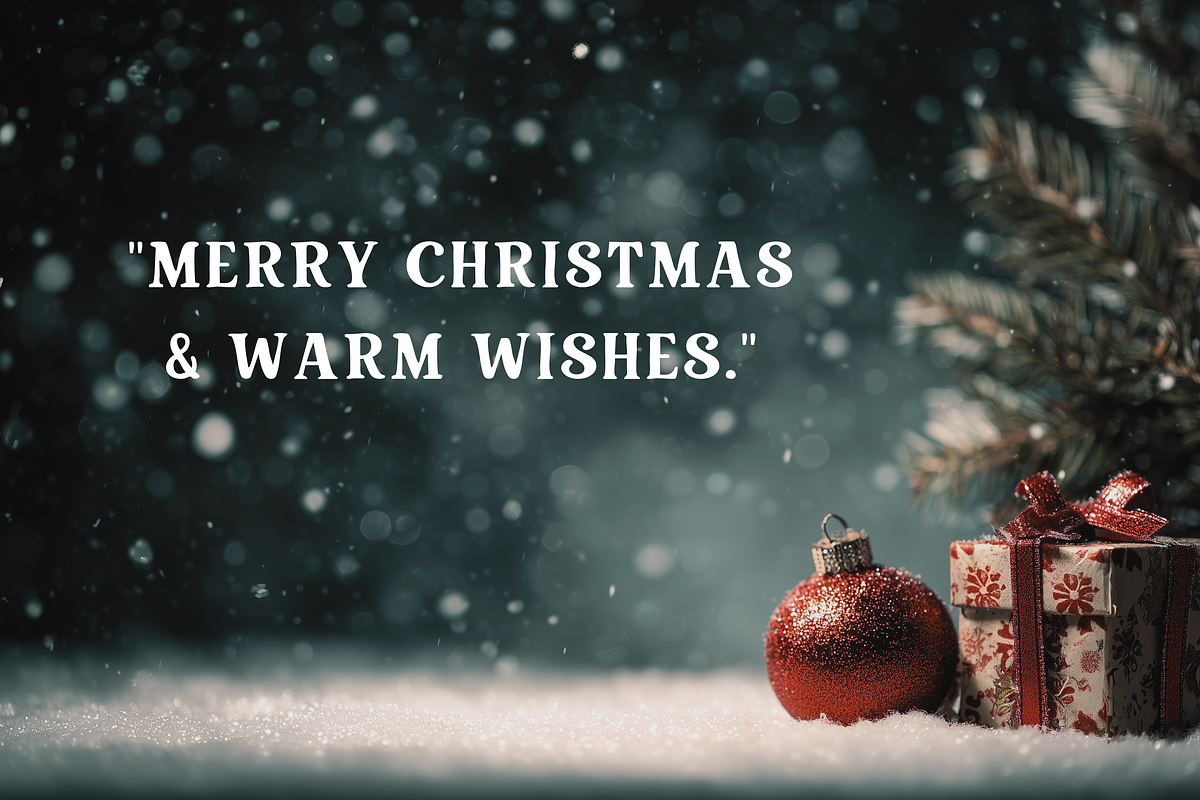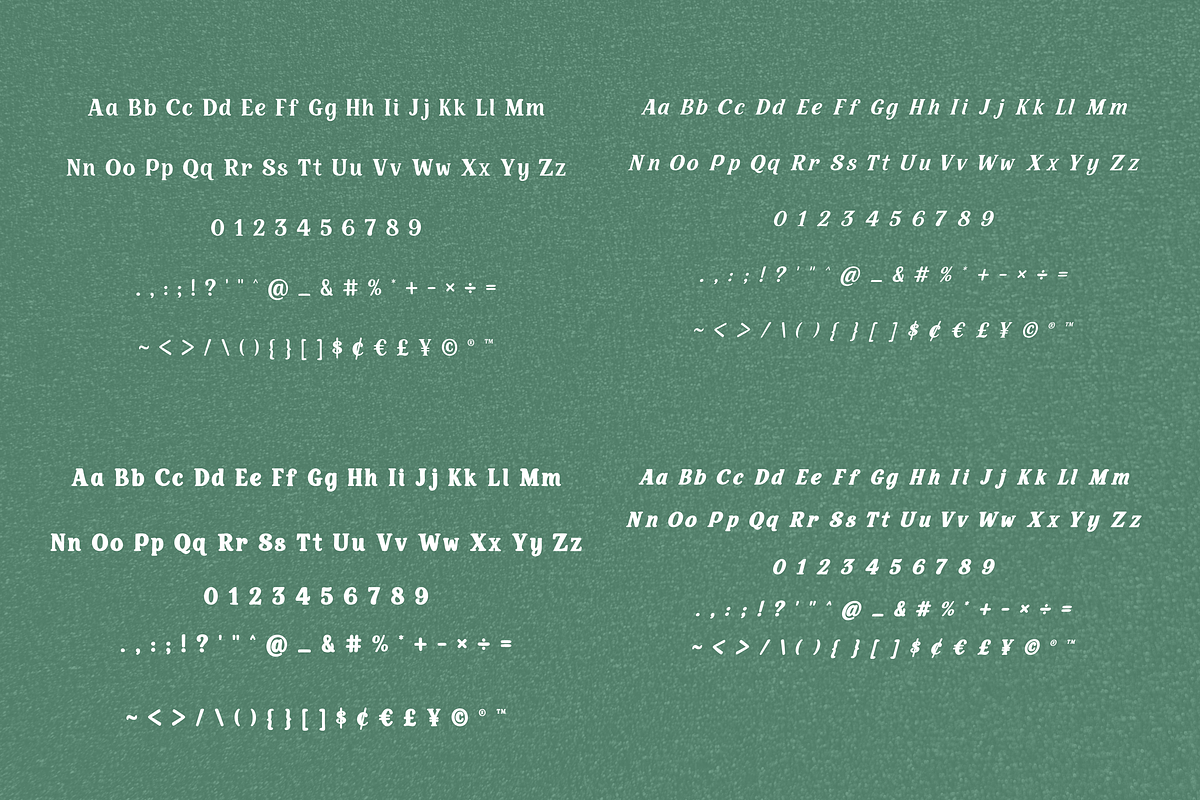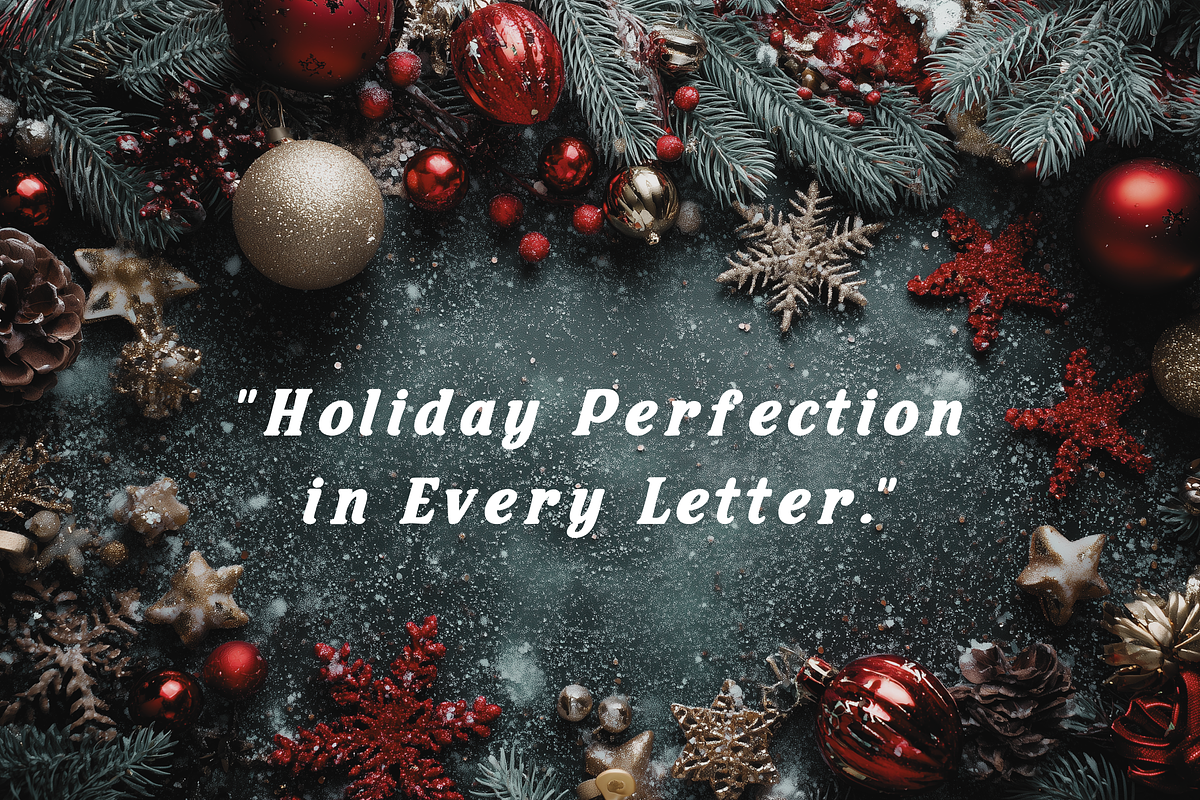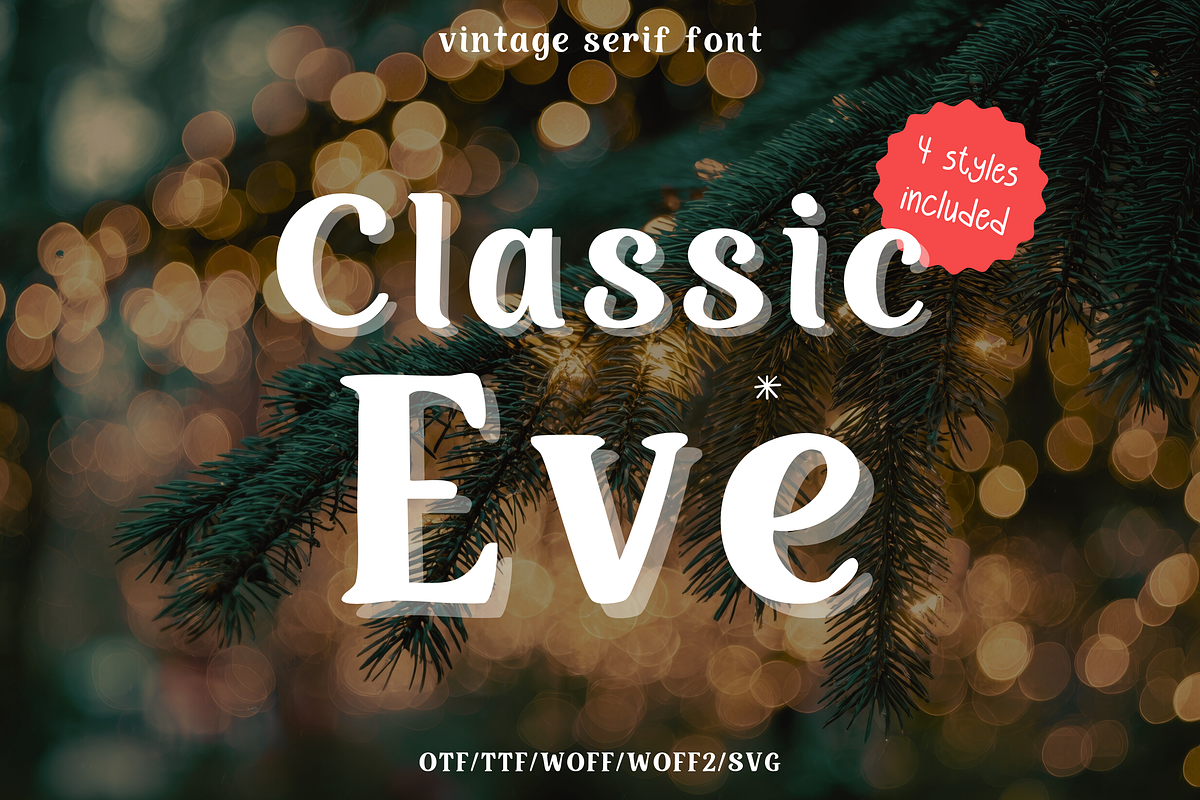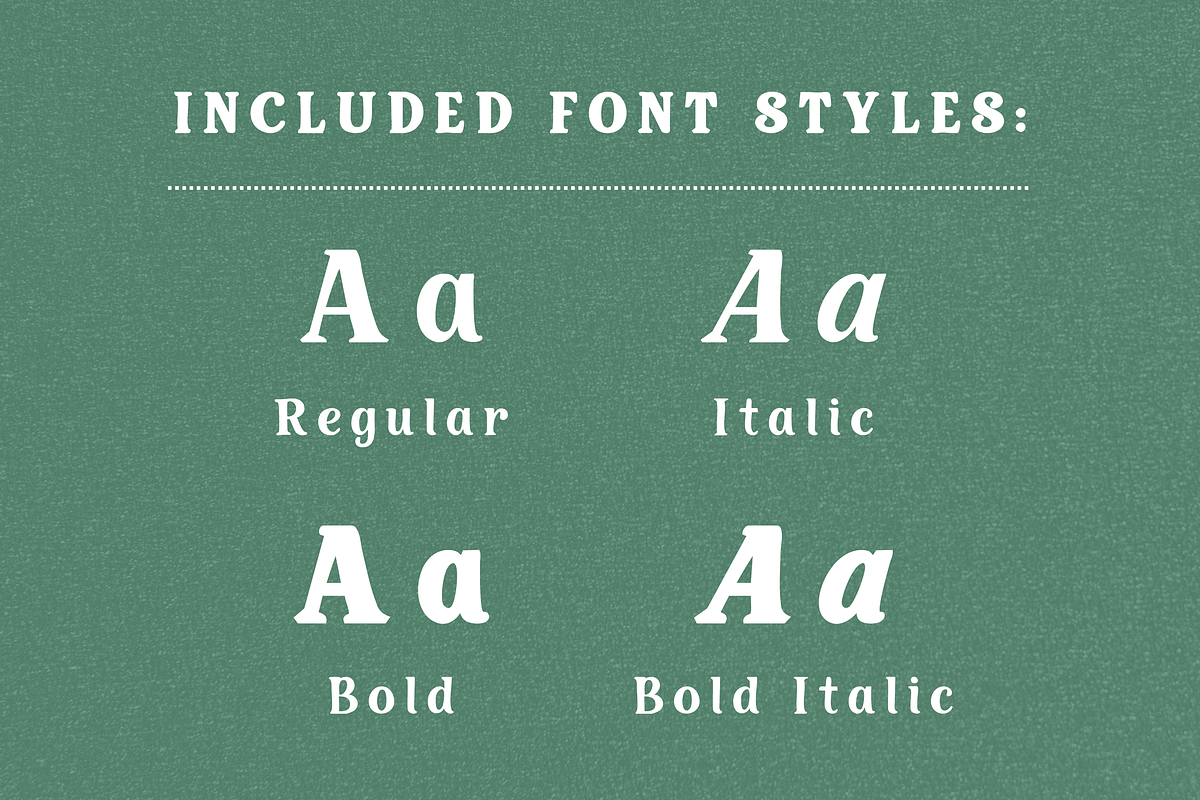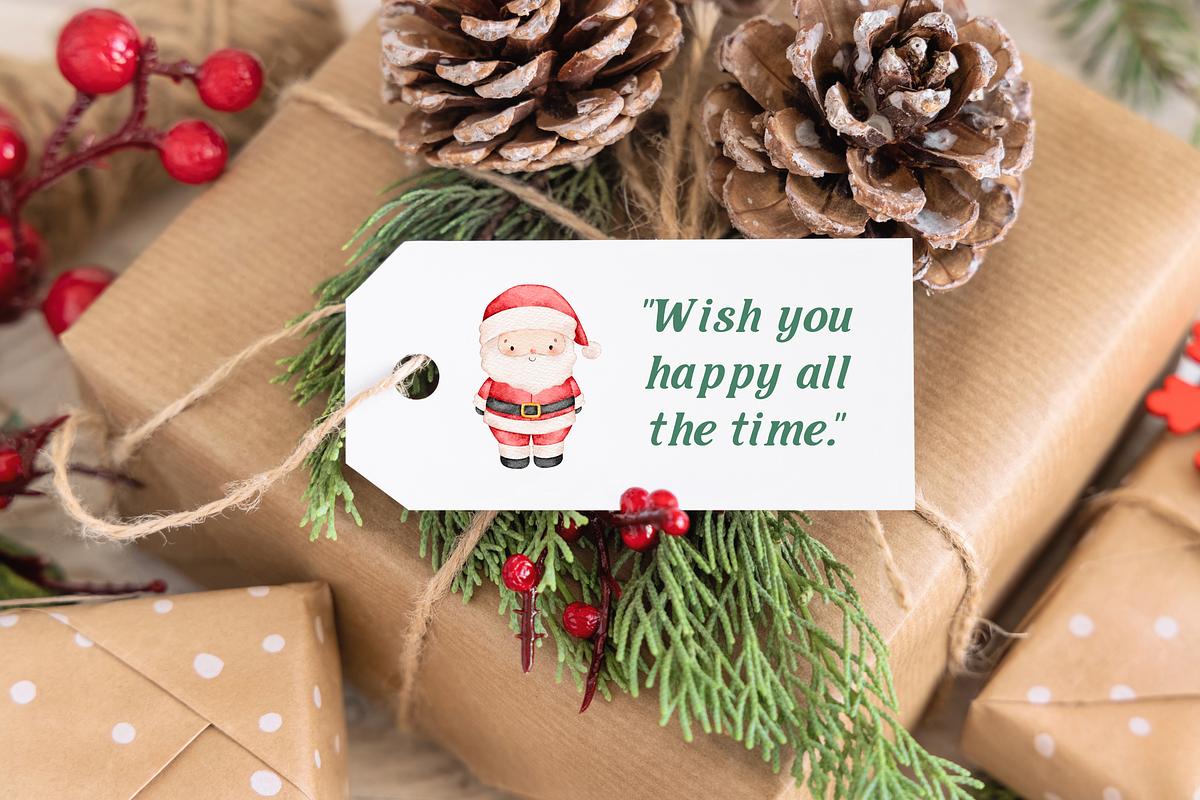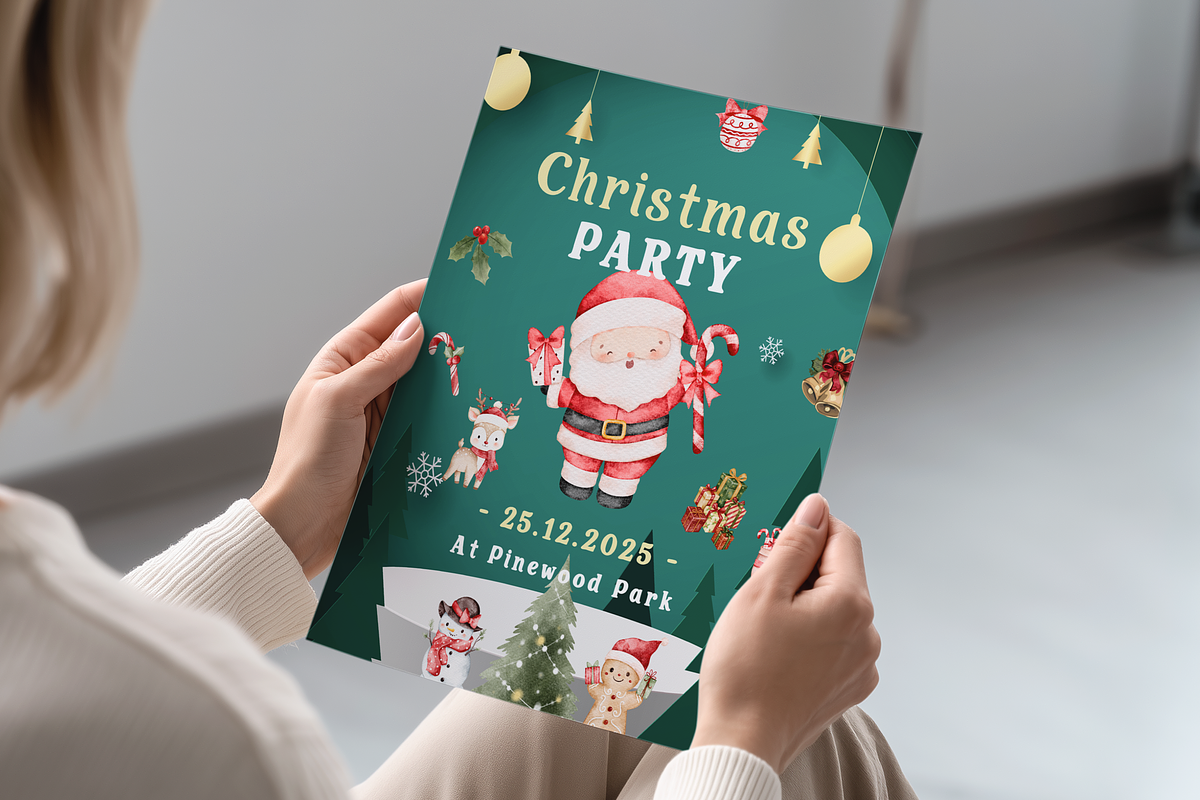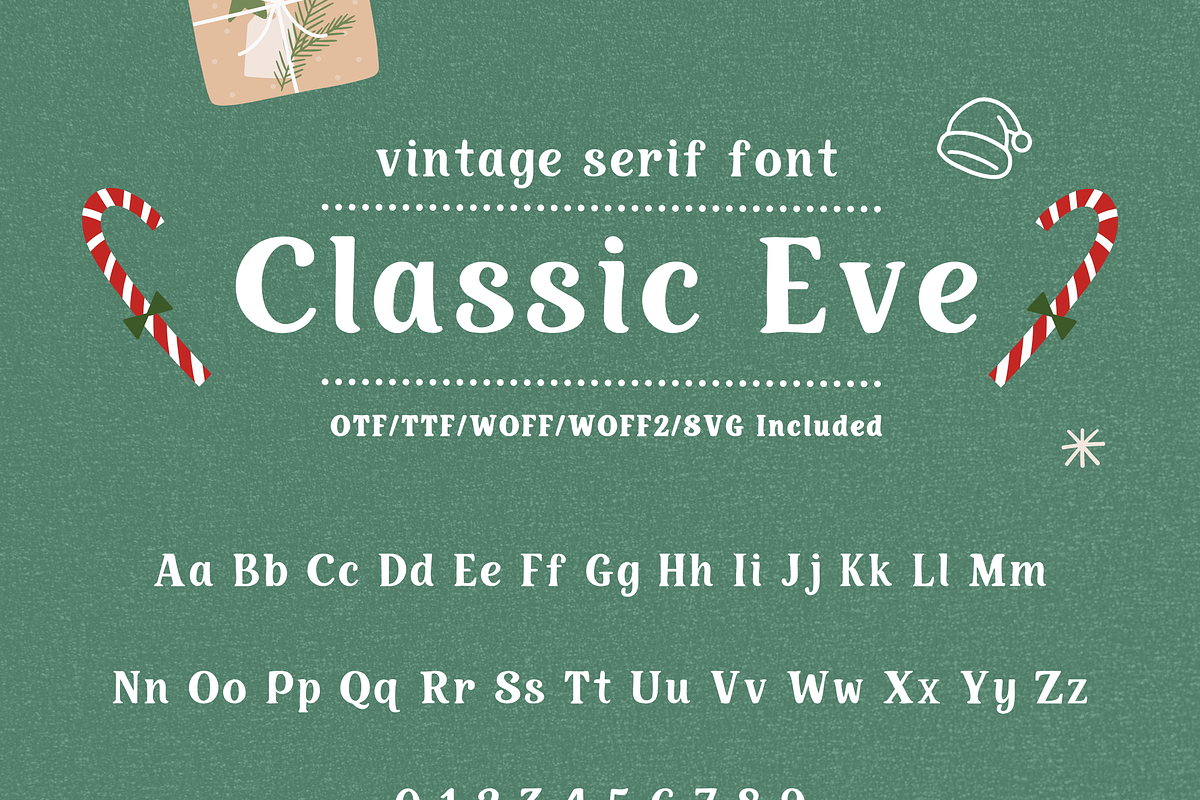
Vintage serif font - Classic Eve
Classic Eve – A cozy, vintage-style serif font family made with Christmas spirit in mind! Whether you're designing holiday cards, festive invitations, party signage, or Cricut crafts, this charming font set brings that nostalgic Christmas magic to every projec